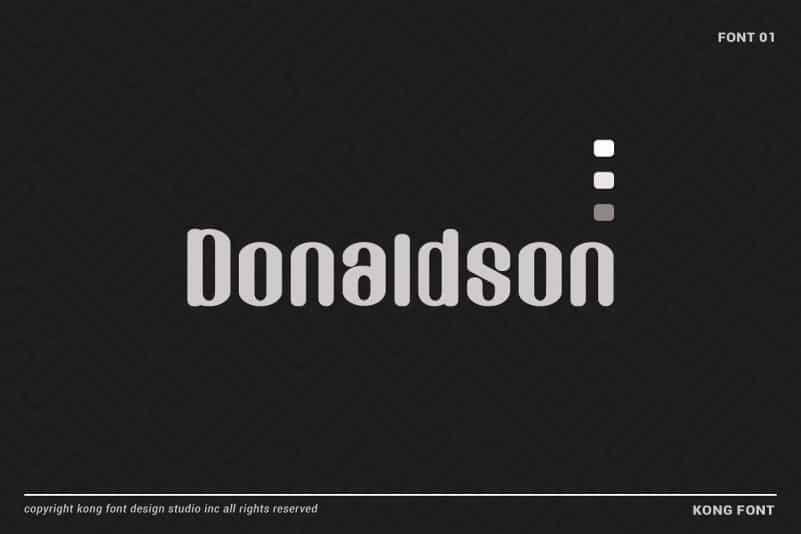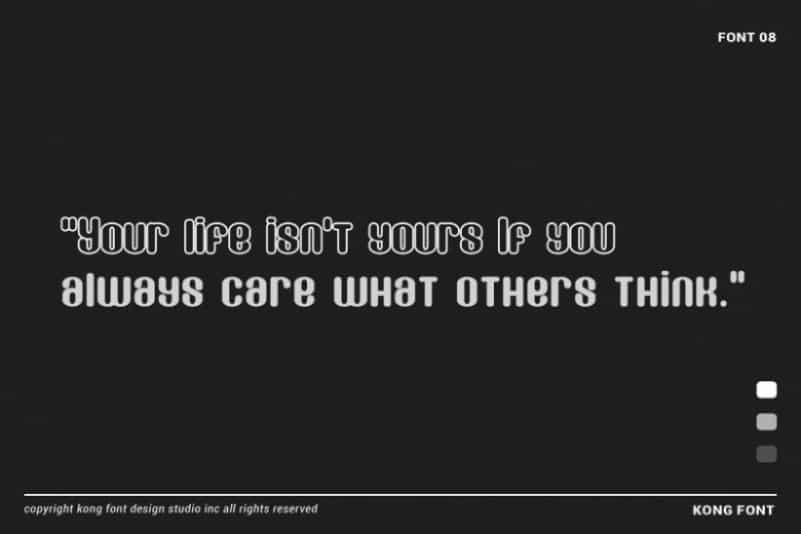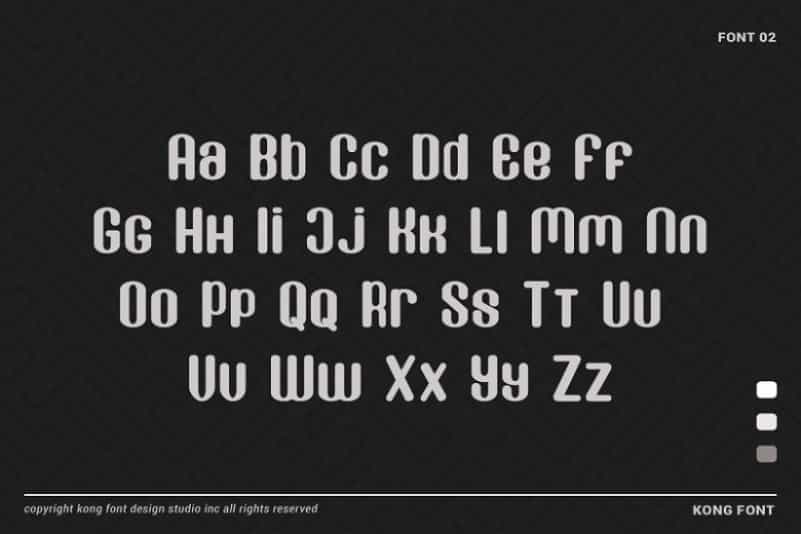
Donaldson is a new bold sans serif display font which has some retro modern styling that makes you feel like you are in the past. This all caps retro modern display font is just perfect for the following types of work: magazine titles and layouts, logo design, brand development, invitations, quotes, blog headers , posters and advertising.